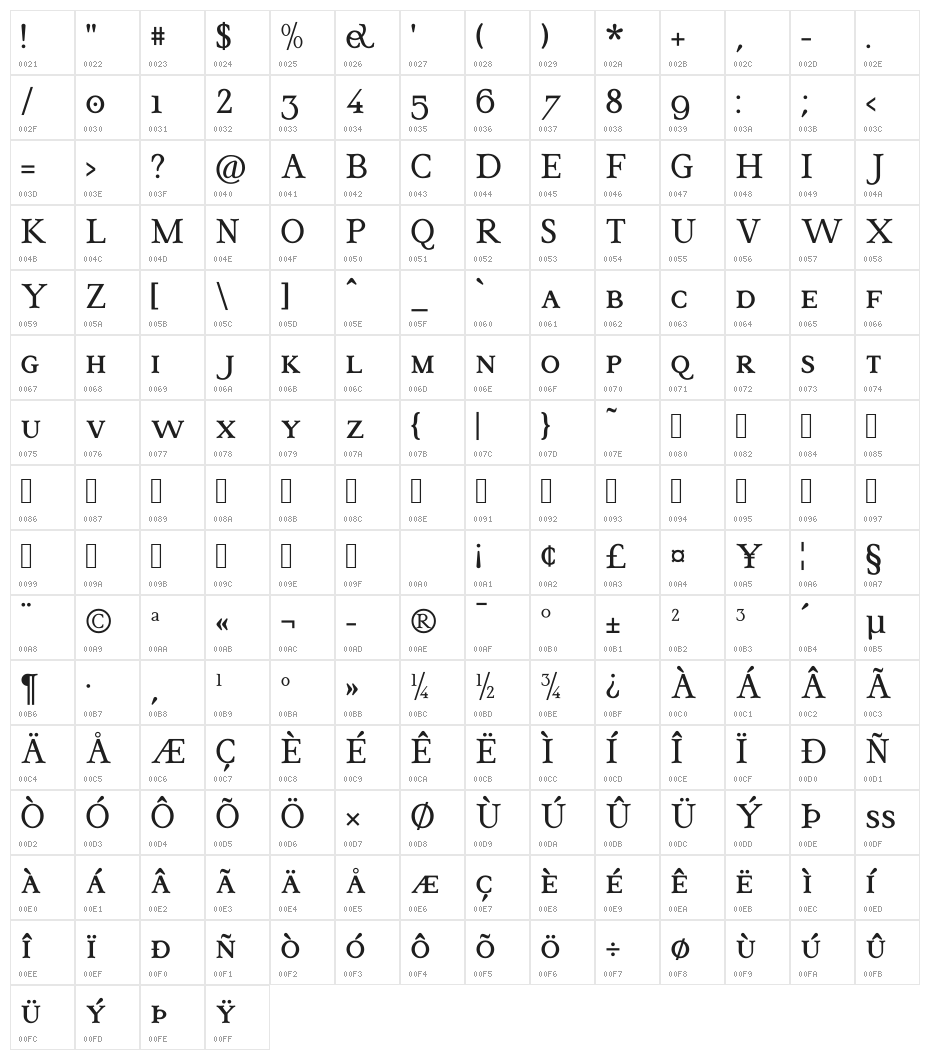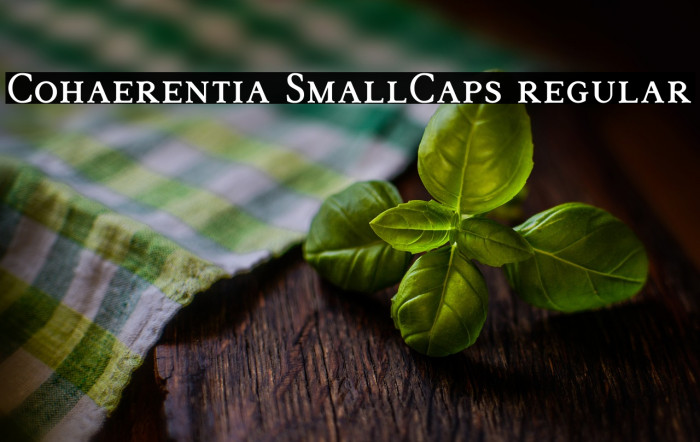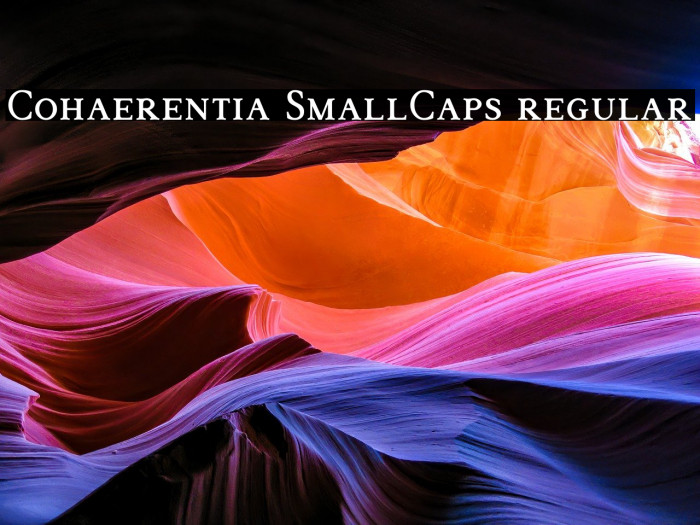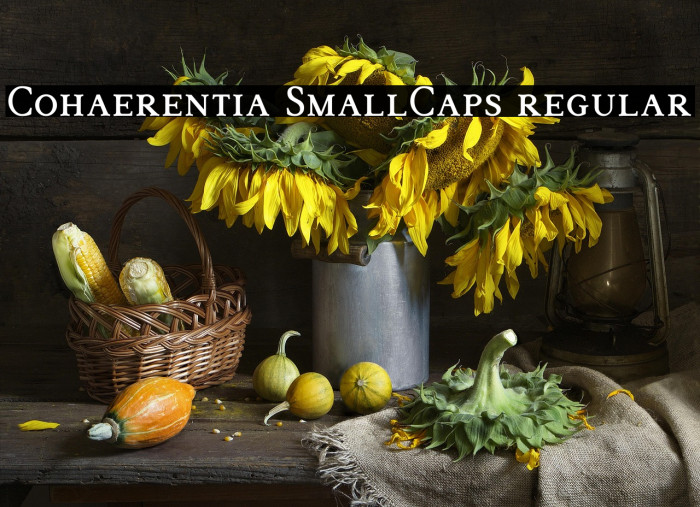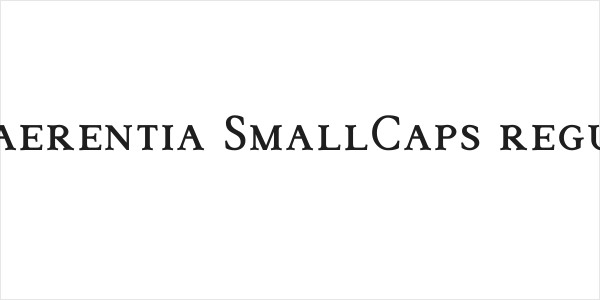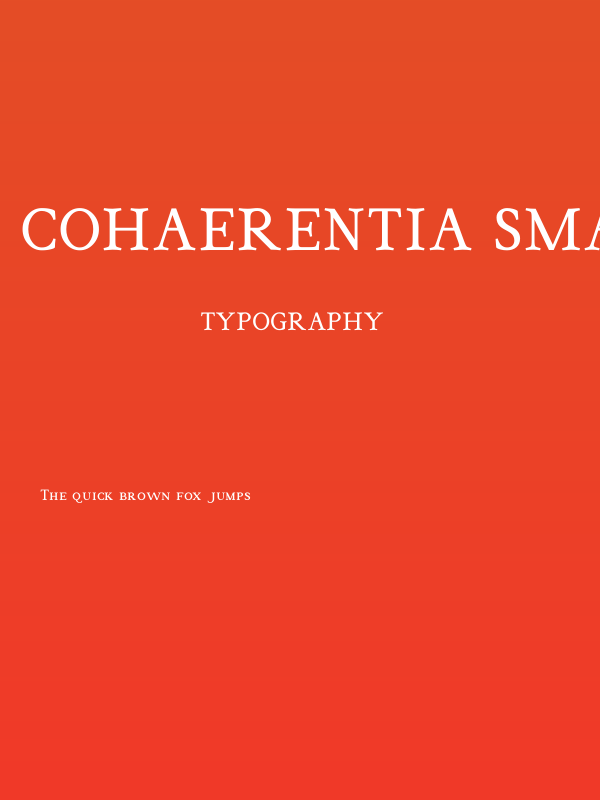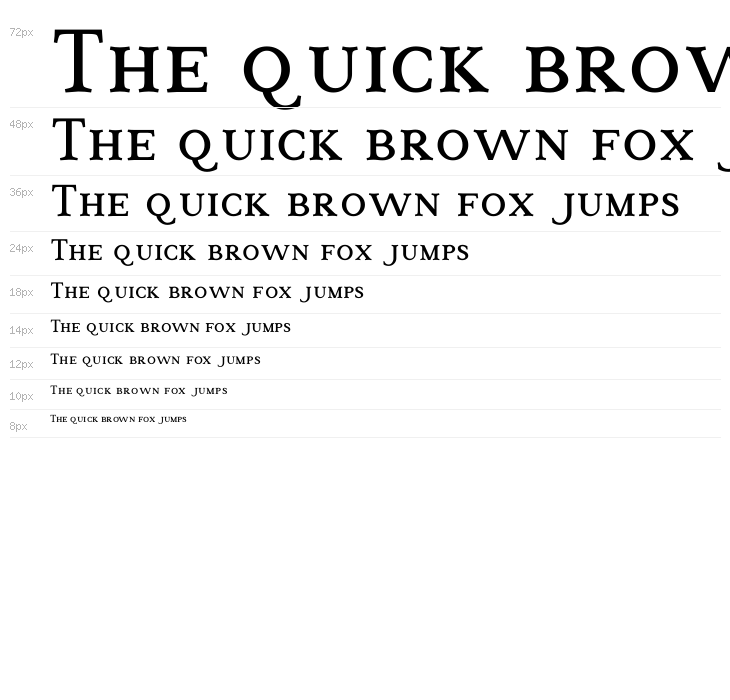
Cohaerentia SmallCaps regular Font
Cohaerentia SmallCaps regular Description
This font features a classic serif style with a refined and elegant appearance. The uppercase letters are bold and well-defined, with a slight curvature that adds a touch of sophistication. The lowercase letters maintain a consistent height, creating a harmonious balance between the characters. The numerals are distinct and easy to read, with a traditional design that complements the overall aesthetic. Special characters are crafted with attention to detail, ensuring they blend seamlessly with the rest of the font. This typeface is versatile, suitable for both formal and creative applications.
| Proposed Projects | Ideal for book covers, formal invitations, branding, and editorial design. |